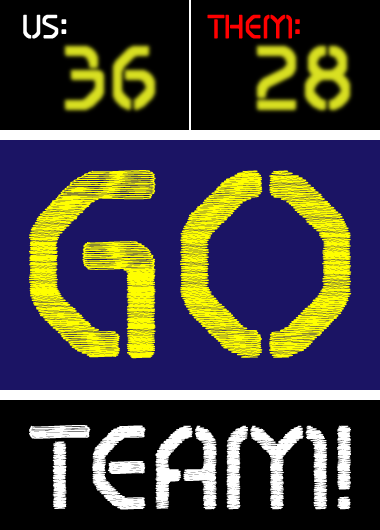
fs GO TEAM!
Chamfered ends
to absorb machination imperfections
—
Angled joints
for embroidery tolerance
—
Stenciled shapes
for spray applications
—
Distinctive glyphs
for ease of recognition
—
Special Yay!/Goal!/Touchdown! glyph
to root the home team
Very convincing in big size, good job!
super. an all-around winner. outstanding and unique.
Great addition to the competition, Thal. Very modern looking glyphs. Dig that embroidery touch.
Another great font for the competition: a rounded stencil face, that looks very versatile. The colon and the semicolon are not at the same level. Hyperrealistic embroidery effect on the demo pic. 10/10
Yay. Faves: (main)S, R, B, 3 (very elegant), whole M-N-W-V inward-outward thang.
@inti: I'm glad you like the V. It is the only glyph that refused to be molded too much.
Versatile indeed! yet another 10 level entry.